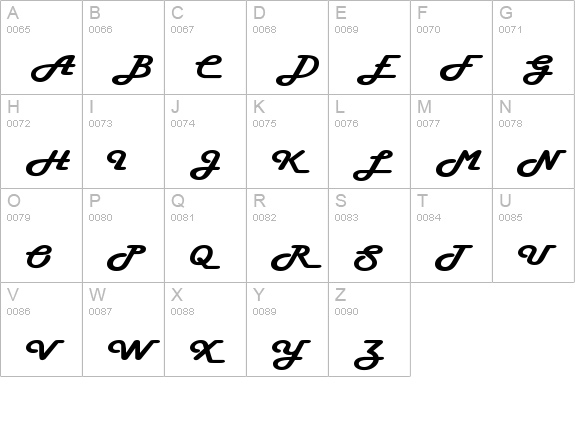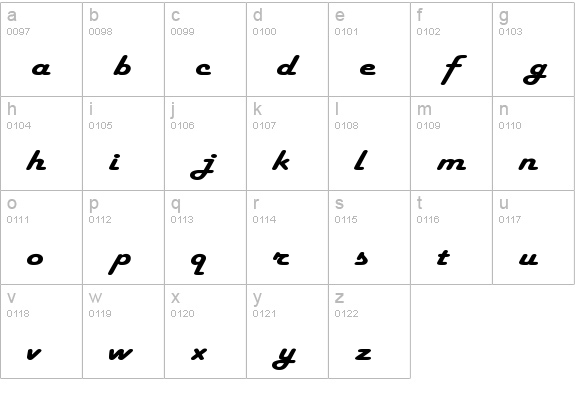
HamburgerExtended Font Details
HamburgerExtended is a bold and playful font that adds a touch of excitement and fun to any design project. With its exaggerated proportions and quirky letterforms, this unique typeface is perfect for creating eye-catching headlines, posters, logos, and more. The HamburgerExtended font is not only visually striking, but it also offers a wide range of versatility. Its bold weight ensures that your message will be noticed, while the extended letterforms add a sense of drama and impact. Whether you're looking to create a vintage-inspired design or a modern and edgy look, HamburgerExtended has you covered. What's even better is that HamburgerExtended is available for free! That's right, this fantastic font can be freely downloaded at FontsMarket.com. Now, you can enhance your designs without worrying about breaking the bank. Simply head over to FontsMarket.com and start exploring the endless possibilities that HamburgerExtended has to offer. So why wait? Embrace the boldness and playfulness of HamburgerExtended and take your designs to the next level. Download it for free today and let your creativity run wild!